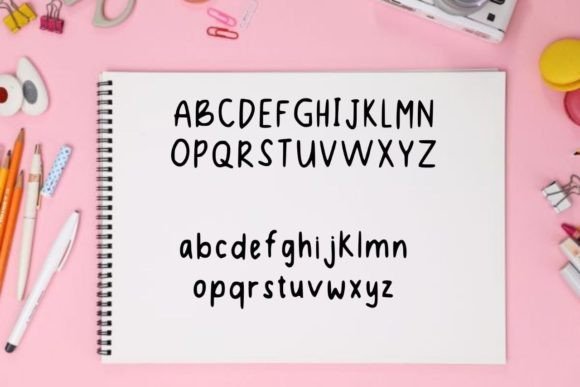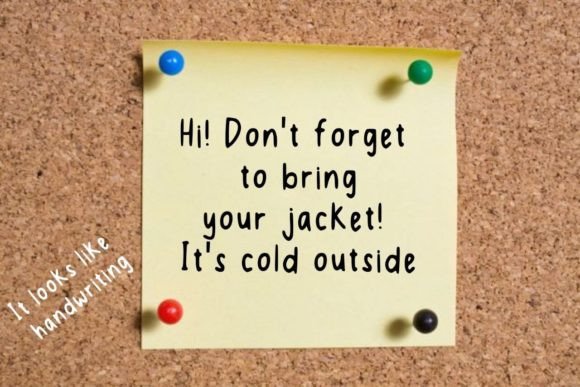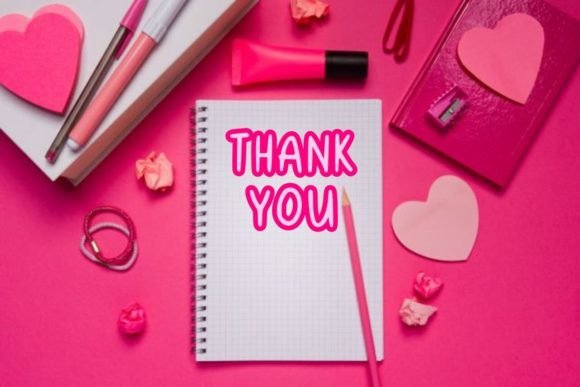
Adding a Dash of Whimsy to Your Designs: The Funny Font
Are you tired of using the same old fonts in your designs? Do you want to add a touch of playfulness and creativity to your projects? Look no further than the Funny Font! As its name suggests, this font is designed specifically for fun usage, making it perfect for designers and crafters who want to inject a bit of humor and whimsy into their work.
What Makes Funny Font So Special?
The Funny Font is a unique and creative typeface that mimics handwriting, giving your designs a personal and informal feel. Its playful and simple design makes it ideal for a wide range of projects, from greeting cards and invitations to posters and social media graphics. Whether you’re a professional designer or a DIY crafter, the Funny Font is sure to bring a smile to your face and add a touch of personality to your work.
Key Features of the Funny Font
- Playful and Simple Design: The Funny Font has a carefree and effortless design that’s perfect for creating fun and engaging content.
- Handwritten Look: The font’s handwritten look gives your designs a personal and informal feel that’s perfect for a wide range of projects.
- English Language Support: The Funny Font is compatible with English writing, making it easy to use for designers and crafters who work with the English language.
- Comprehensive Character Set: The font includes uppercase and lowercase letters, numbers, and punctuation marks, giving you everything you need to create a wide range of designs.
Uses for the Funny Font
The Funny Font is versatile and can be used for a wide range of projects, including:
- Greeting Cards: Add a touch of whimsy to your greeting cards with the Funny Font.
- Invitations: Create playful and fun invitations for parties, events, and more.
- Posters: Use the Funny Font to create eye-catching posters for movies, events, and products.
- Social Media Graphics: Add a touch of personality to your social media graphics with the Funny Font.
- Crafting Projects: Use the Funny Font to add a personal touch to your crafting projects, such as scrapbooking and journaling.
Tips for Using the Funny Font
Here are a few tips for getting the most out of the Funny Font:
- Experiment with Sizes: The Funny Font looks great in a variety of sizes, so don’t be afraid to experiment to find the perfect size for your project.
- Pair with Other Fonts: The Funny Font pairs well with other fonts, so try combining it with a serif or sans-serif font to create visual interest.
- Use for Headlines: The Funny Font is perfect for headlines and titles, where its playful design can really shine.
The Funny Font is a unique and creative typeface that’s perfect for designers and crafters who want to add a touch of whimsy to their work. With its playful and simple design, comprehensive character set, and compatibility with English writing, the Funny Font is sure to become a favorite in your font collection. So why not give it a try and see how it can add a dash of fun to your designs?